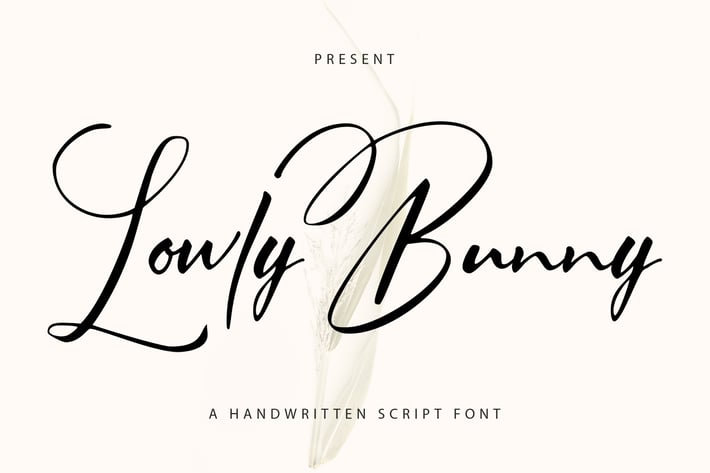
Lowly Bunny | Handwritten Script Font
Lowly Bunny | Handwritten Script Font with a calligraphy style, So beautiful on invitation like greeting cards, branding materials, business cards, quotes, posters, and more!